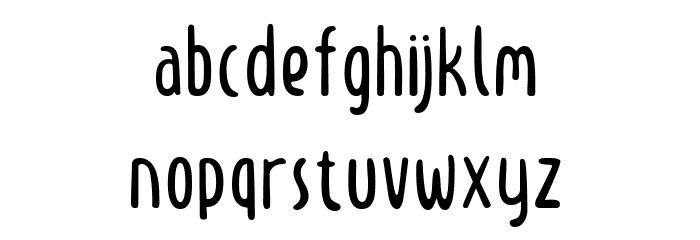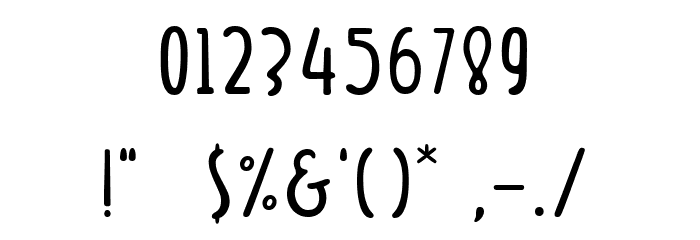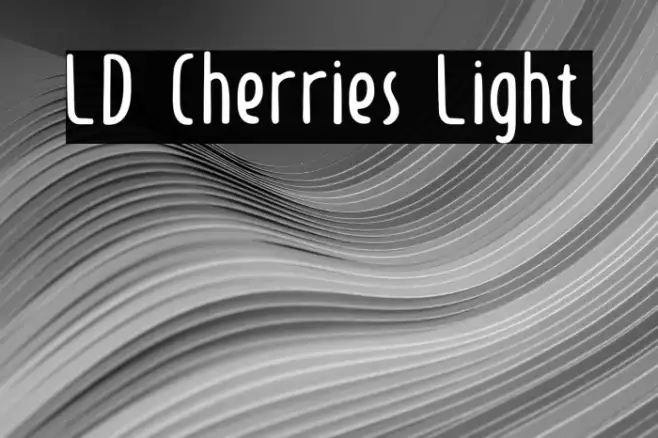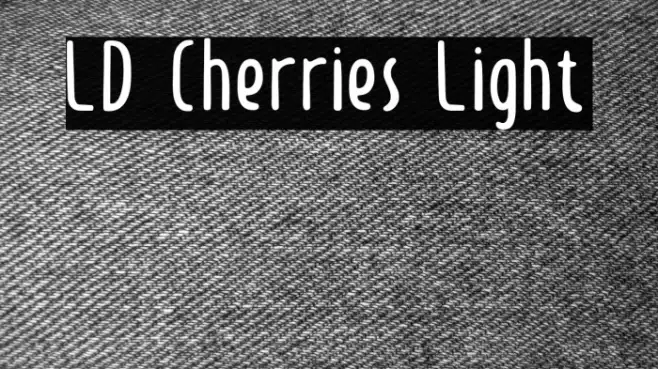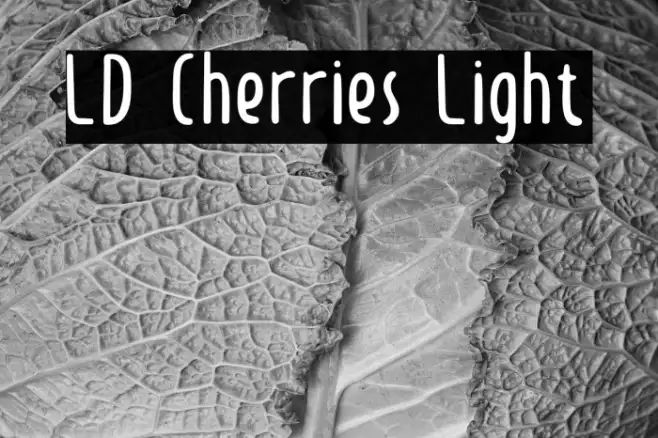
LD Cherries Light Font
This font features a playful and whimsical design, characterized by its rounded and slightly irregular letterforms. The strokes are consistent in weight, providing a uniform appearance across all characters. The uppercase letters are tall and narrow, while the lowercase letters maintain a more compact and rounded shape. The numbers and special characters follow the same playful style, making the font suitable for informal and creative projects. Its overall appearance is friendly and approachable, with a touch of casual elegance.
A playful and whimsical font with rounded, consistent letterforms.
- Font: LD Cherries Light
- Proposed Projects: Ideal for children's books, greeting cards, playful branding, and casual invitations.
- Weight: Light
- Overall Style: Playful, Casual
- Use Case: Headlines, Logos, Informal Text